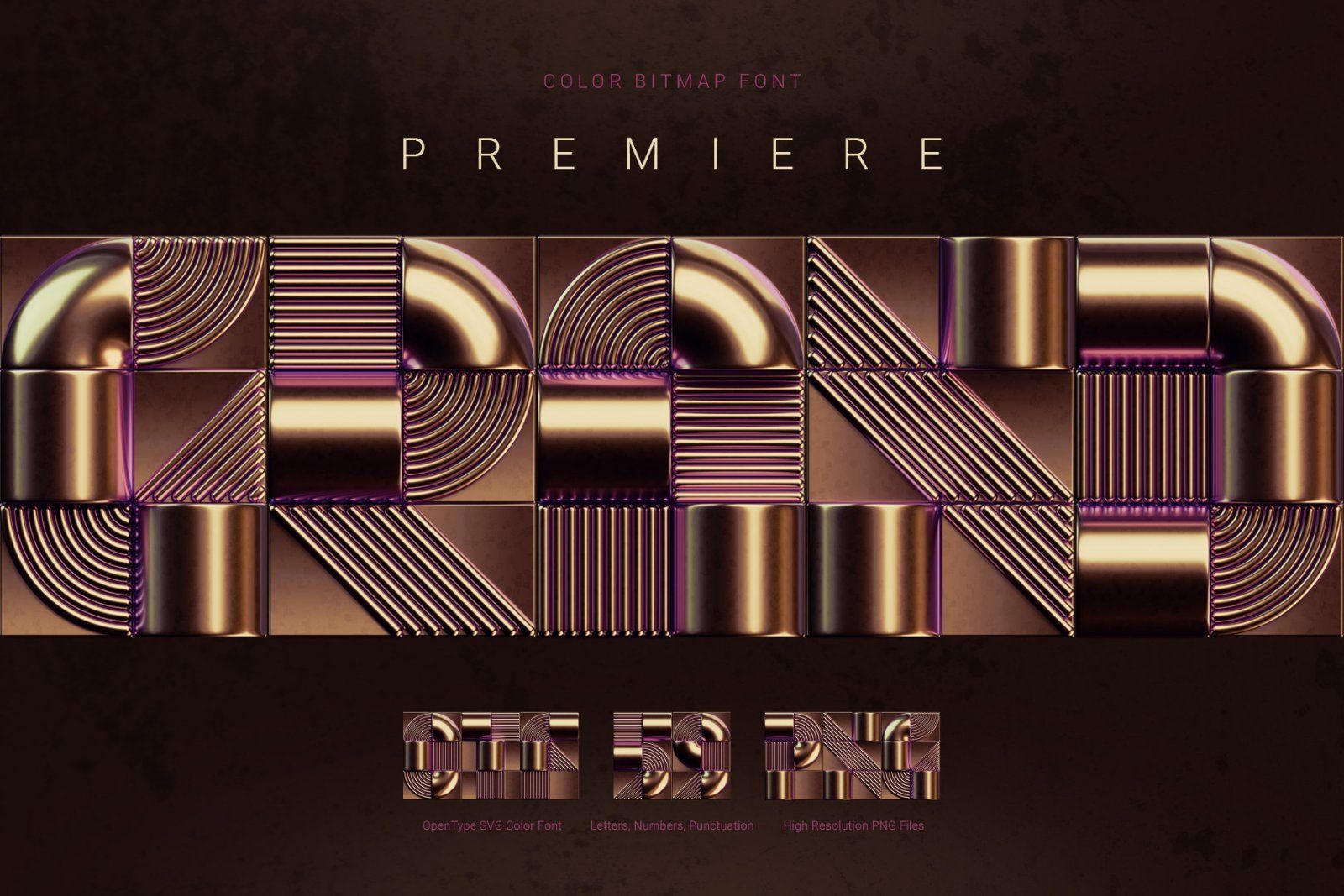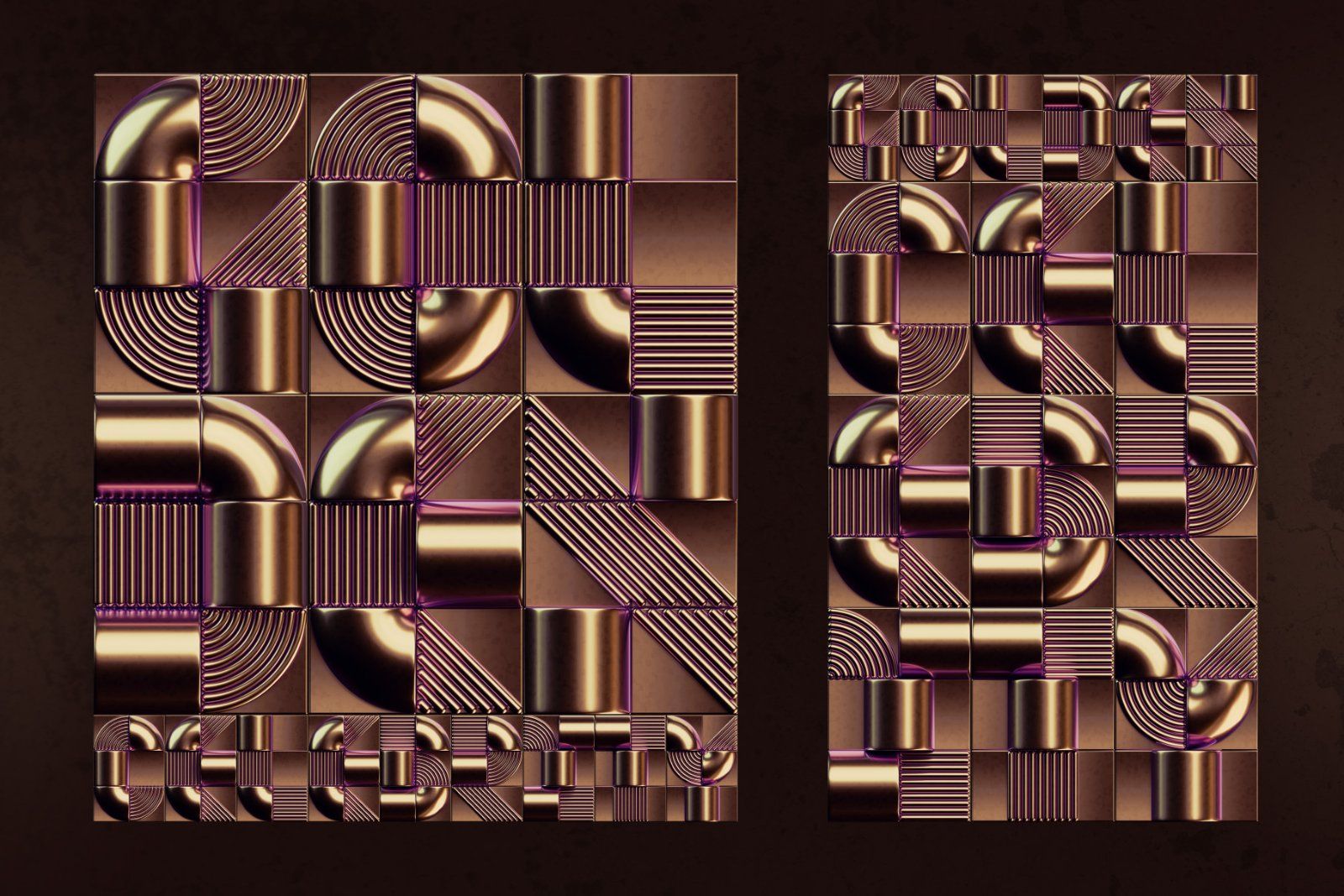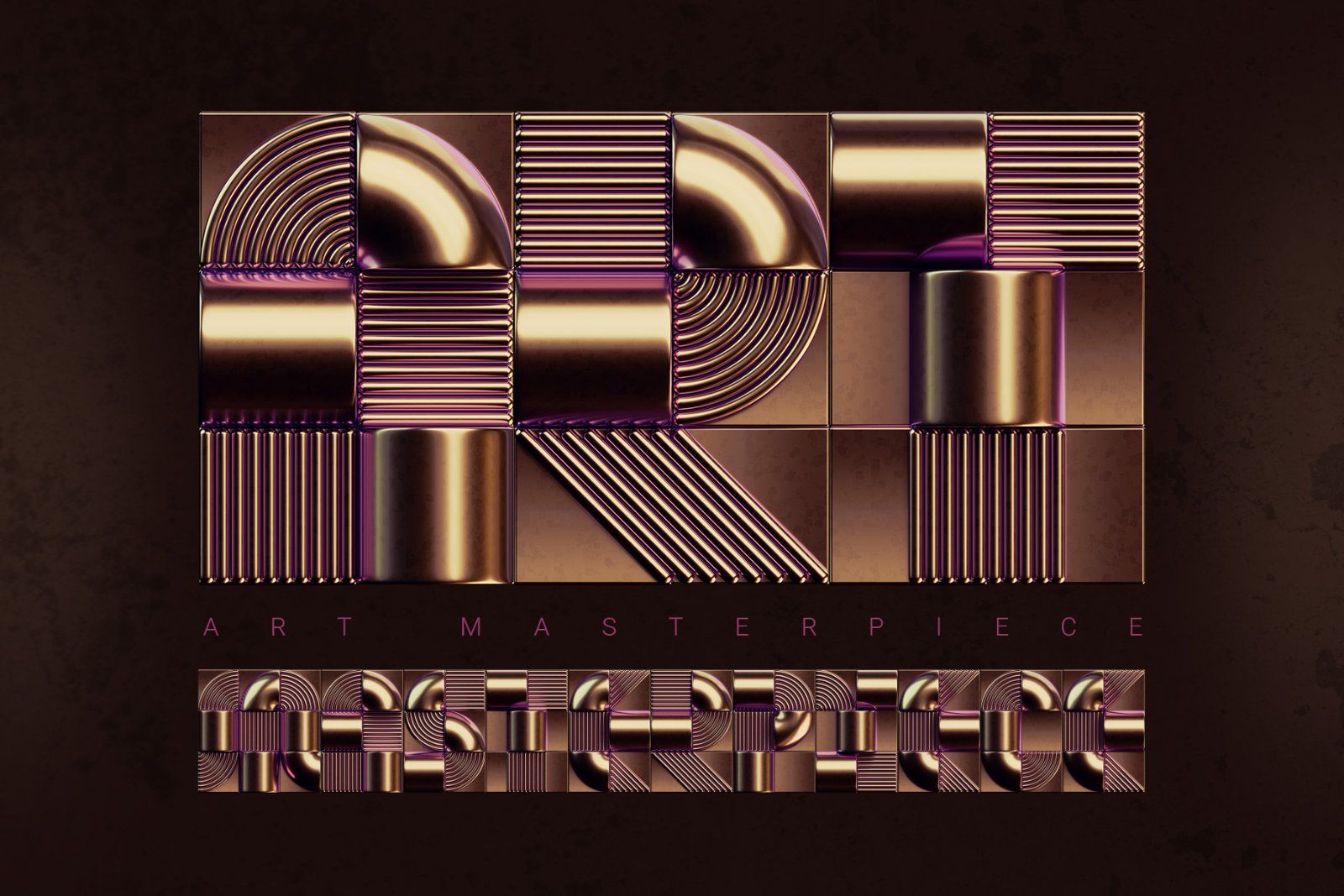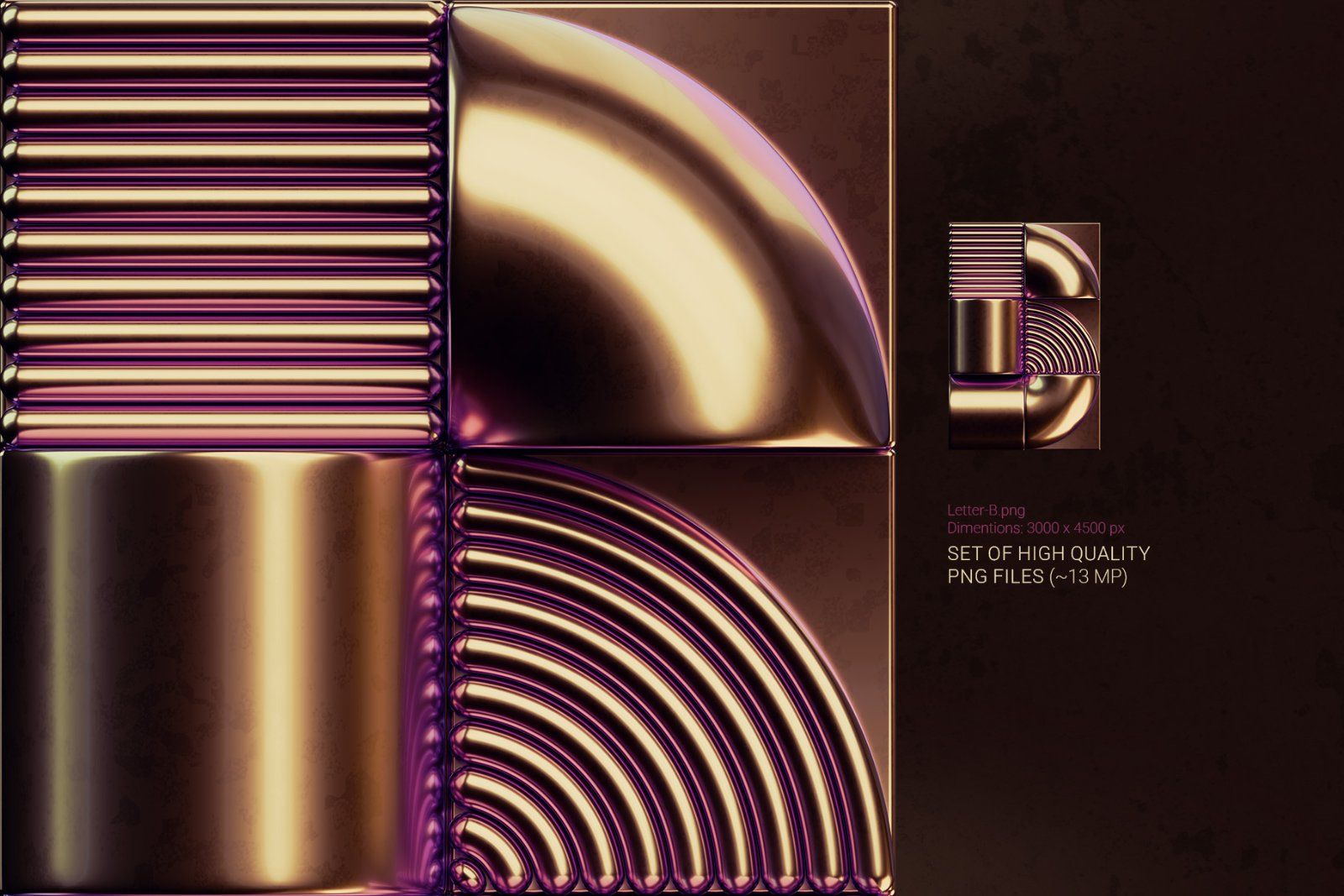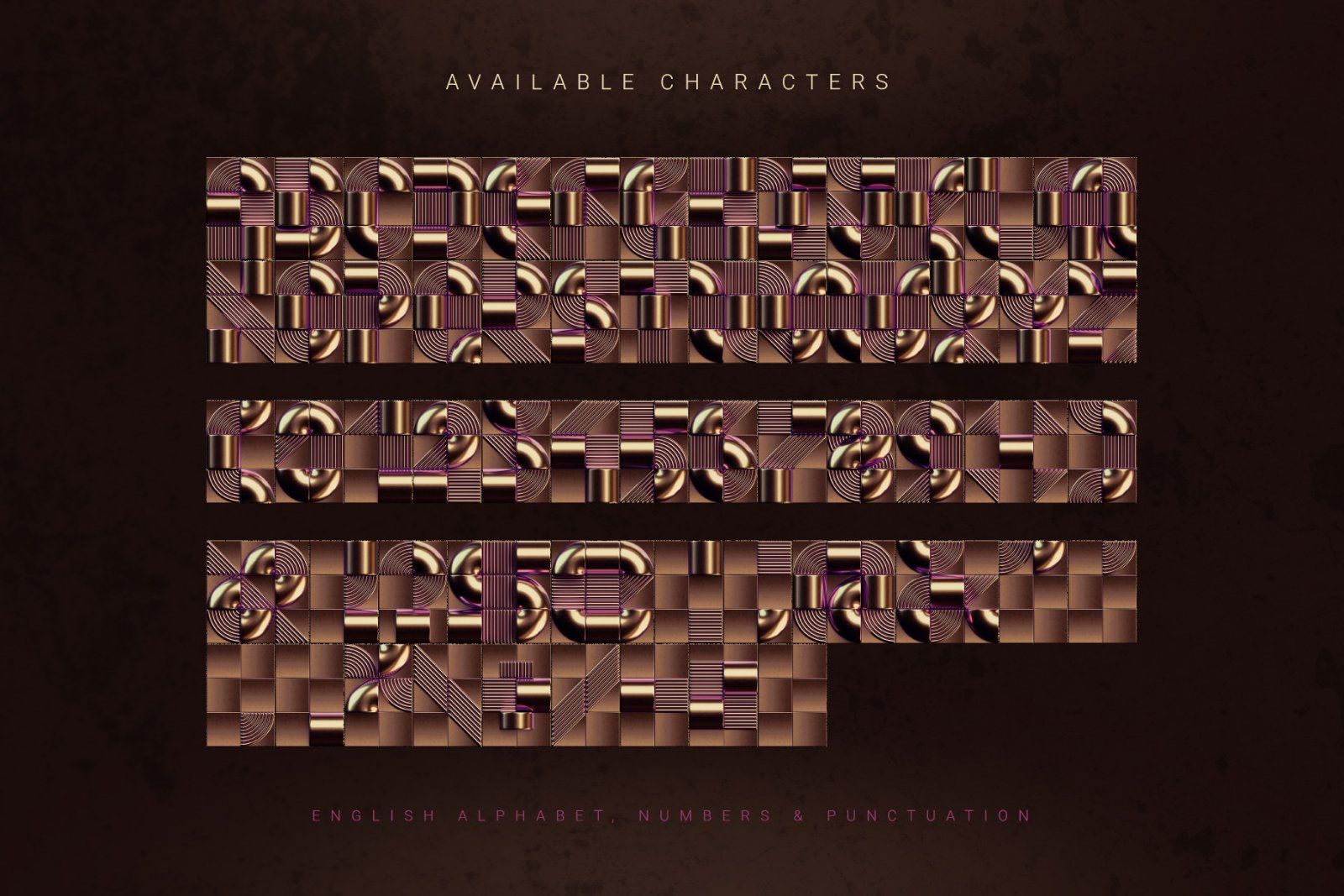
Elevate your designs with Premiere Grand, a sophisticated 3D golden font that captures the sleek geometry and high-end glamour of the Art Deco era. Its polished metallic finish and bold architectural lines make it the perfect choice for luxury branding, upscale invitations, and cinematic title headers.